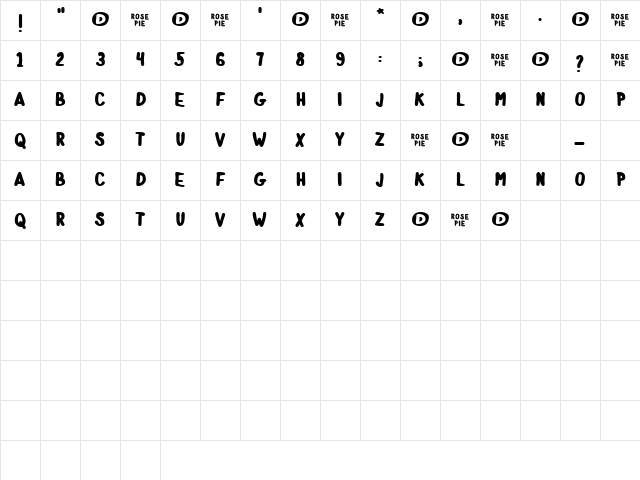
Rose Pie Regular Free Font
Rose Pie Regular
Design Context for Rose Pie
Rose Pie is a composed and adaptable typeface that performs quietly and consistently across a wide range of design contexts.